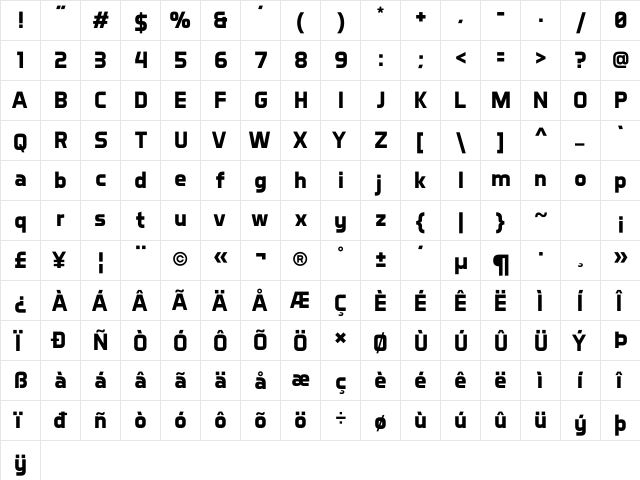
Aero Matics Bold
| Designer | Jayvee D. Enaguas (GrandChaos) |
Design Context for Aero Matics Typeface
Aero Matics is a composed and adaptable typeface that performs quietly and consistently across a wide range of design contexts. Its bold stroke weight gives it real presence on the page.